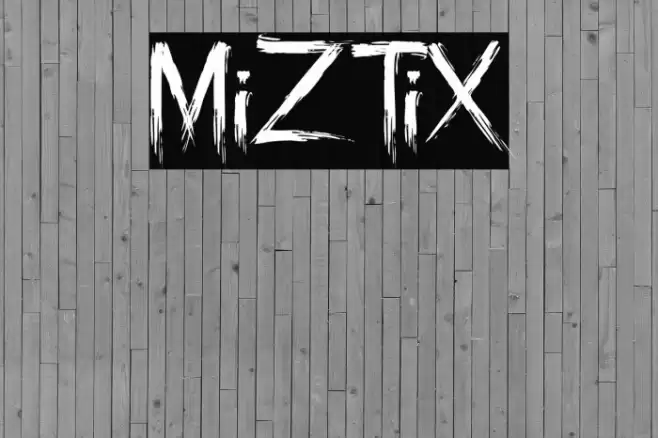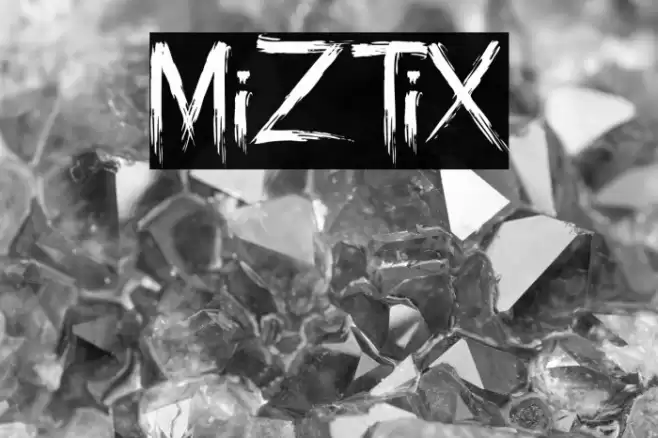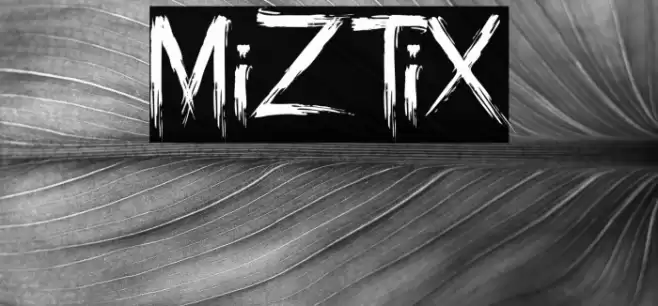
MiZTiX Font
MiZTiX Description
This font features a bold and dynamic brushstroke style, characterized by its rough, textured edges and energetic appearance. The letters have a hand-painted look, with varying thicknesses that give it a raw and artistic feel. The uppercase and lowercase letters maintain a consistent style, while the numbers and special characters are equally expressive, adding to the font's overall impact. The design is visually striking, making it ideal for projects that require a strong and creative statement.
A bold, brushstroke-style font with a raw, artistic appearance from Regular fonts.
- Proposed Projects: Perfect for album covers, posters, branding, and any project needing a bold, artistic touch.